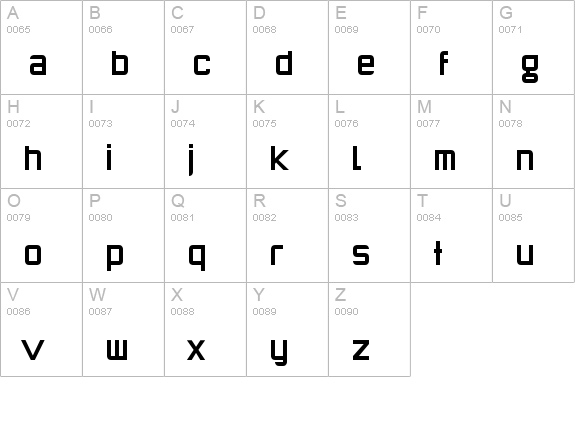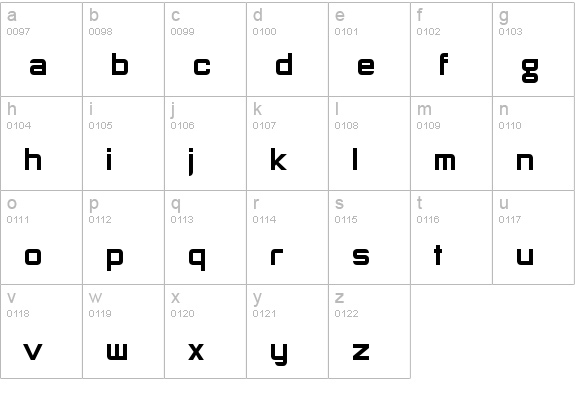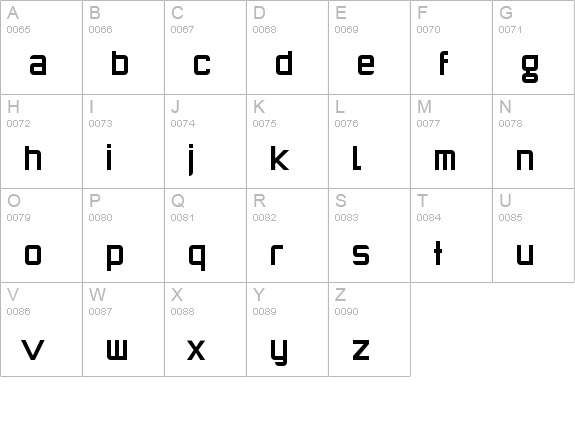
NeeskensBlack Font Details
Introducing NeeskensBlack font, a bold and striking typeface that commands attention with its sleek and modern design. This versatile font is perfect for a wide range of design projects, from logos to posters to branding materials. With its strong, clean lines and sophisticated aesthetic, NeeskensBlack font exudes confidence and style. What's even better is that NeeskensBlack font is available for free download at FontsMarket.com. That's right, you can easily access this stunning font to elevate your designs without any cost. Don't miss out on this fantastic opportunity to add NeeskensBlack font to your font collection and take your creative projects to the next level. Download now and let your creativity soar with NeeskensBlack font!